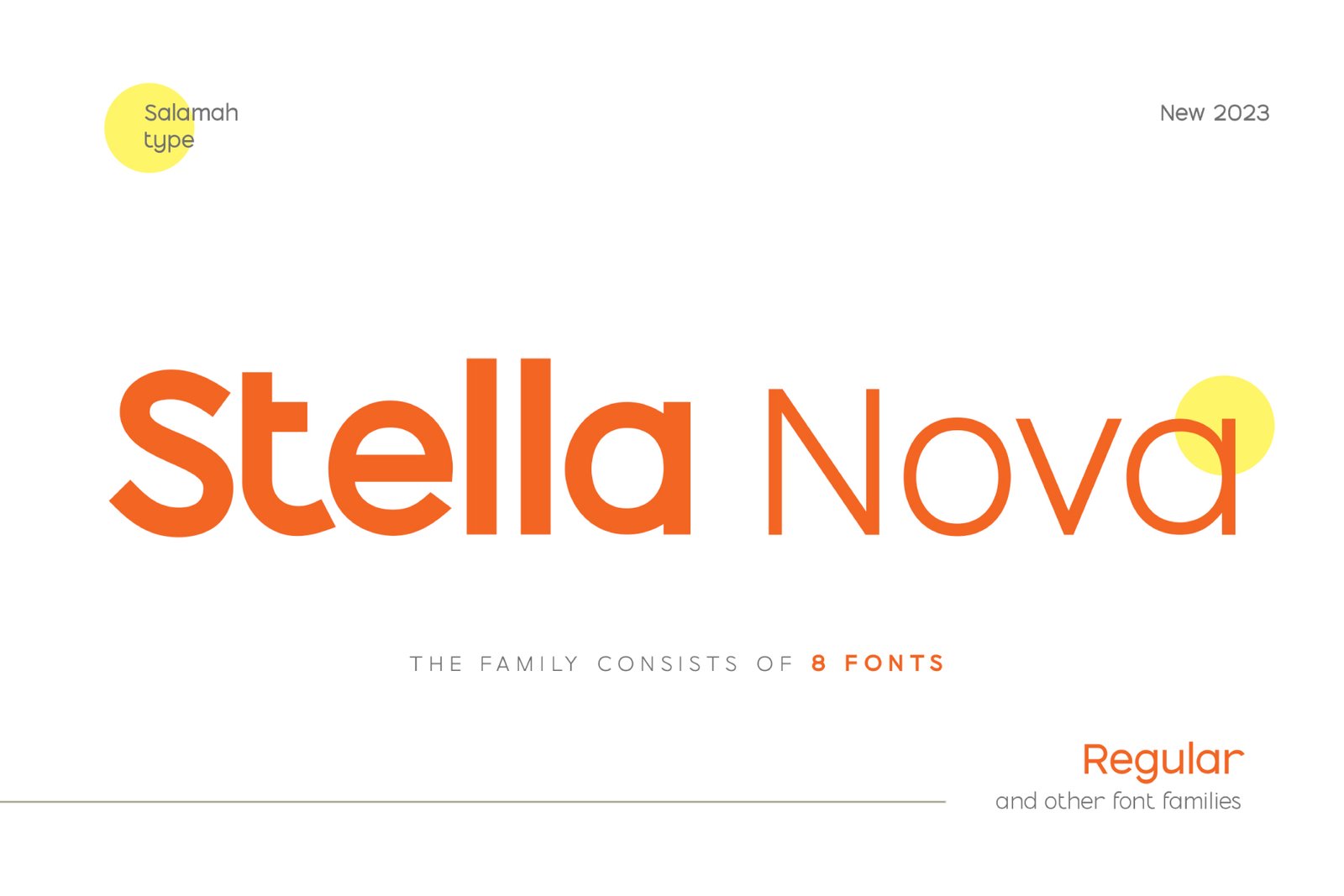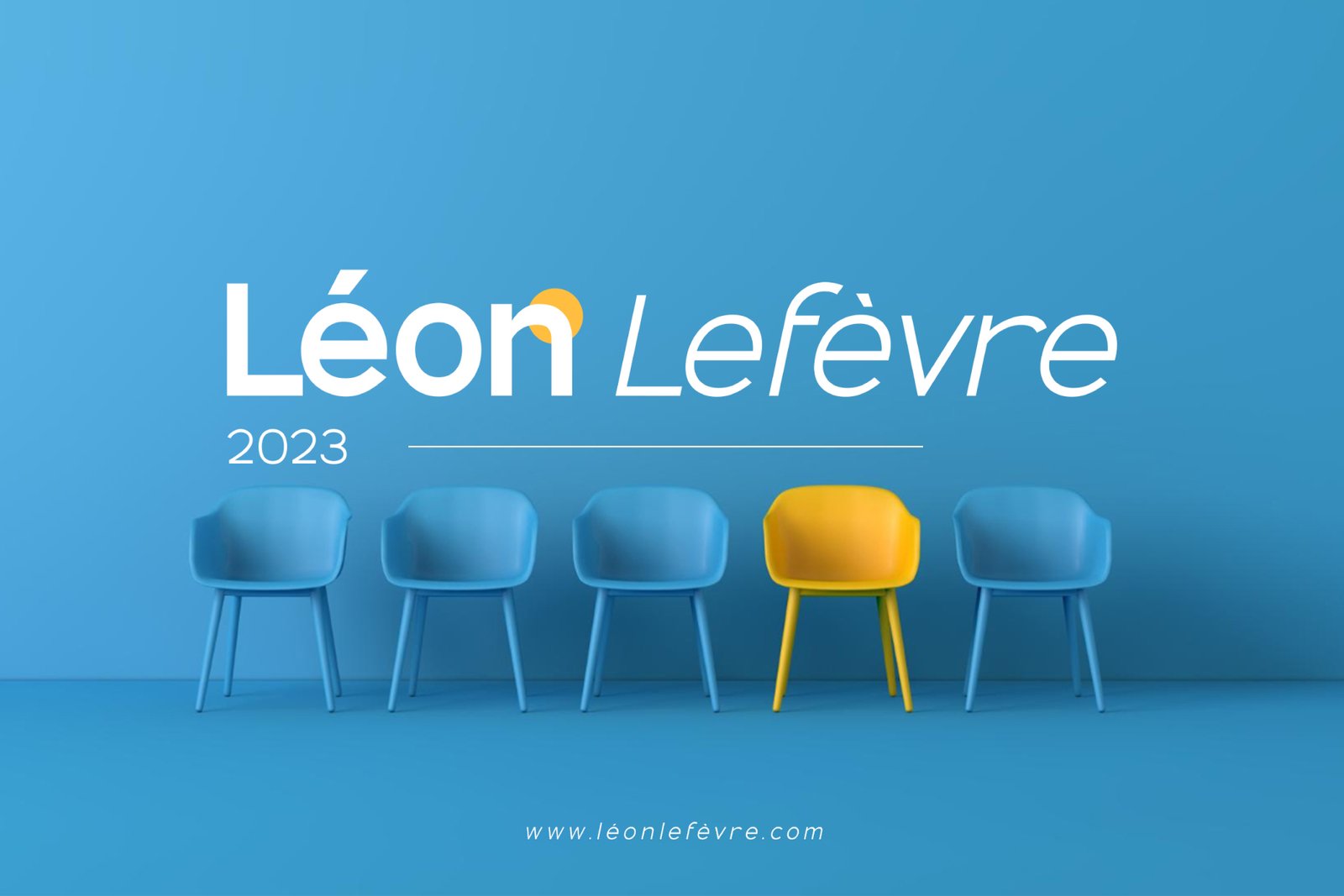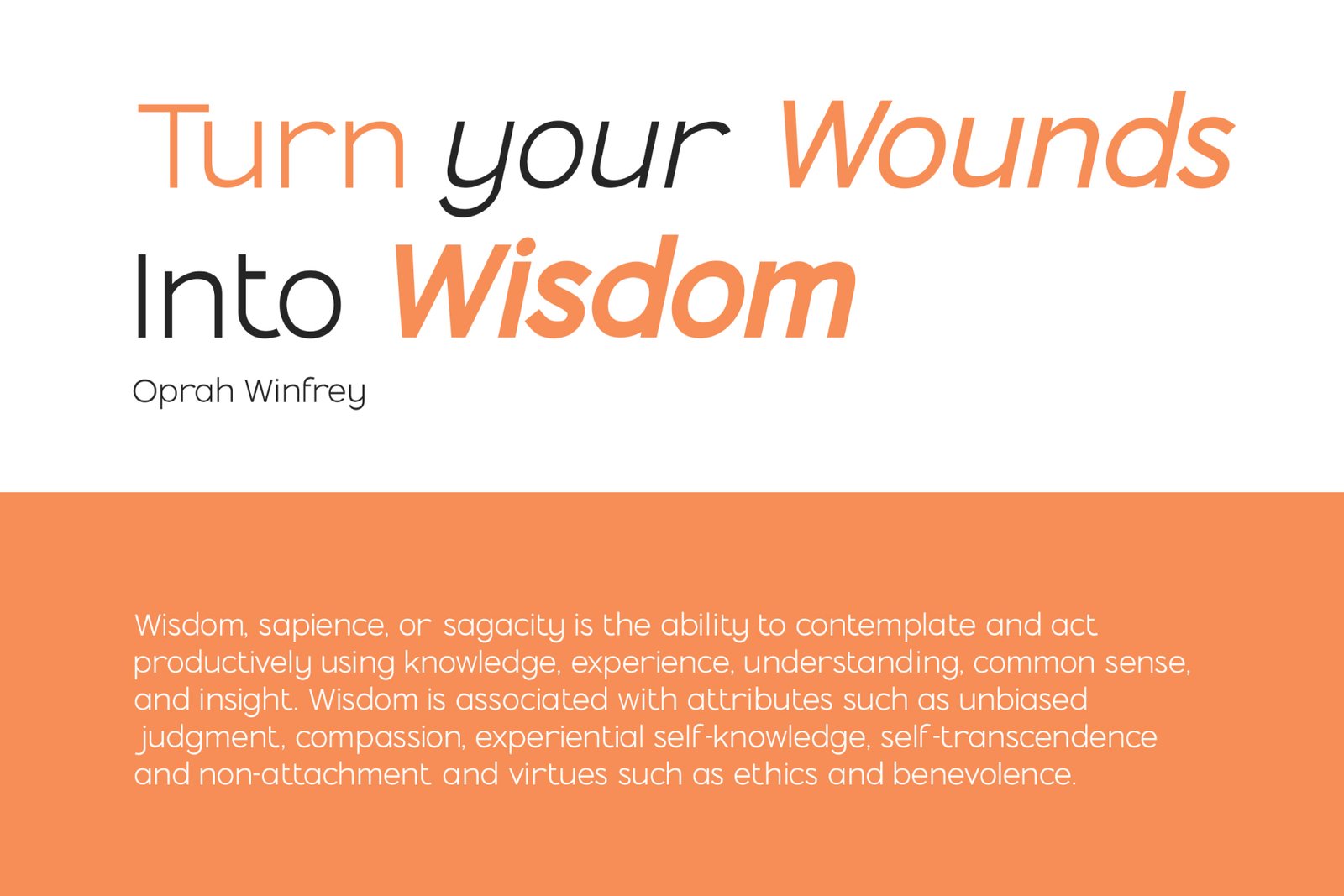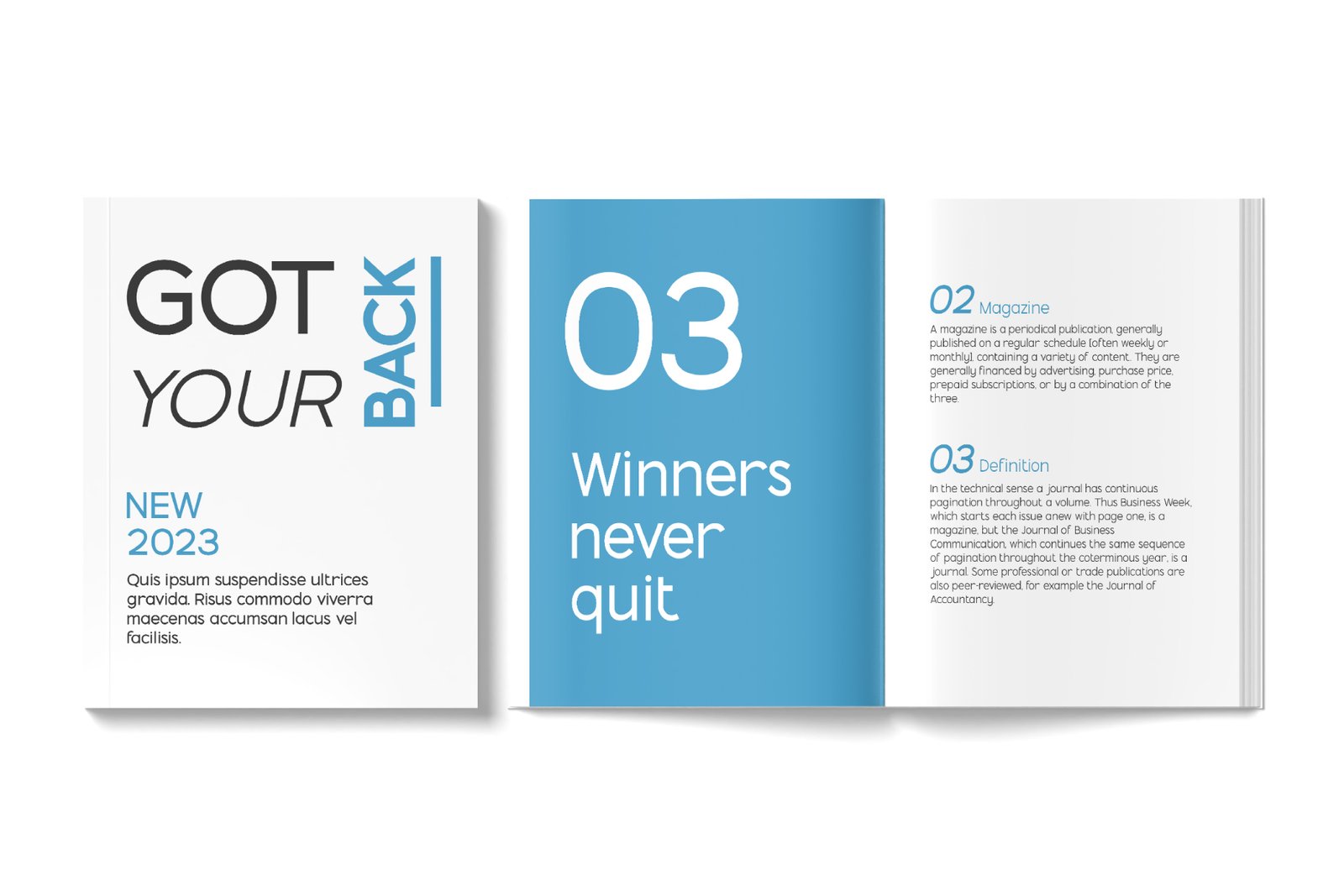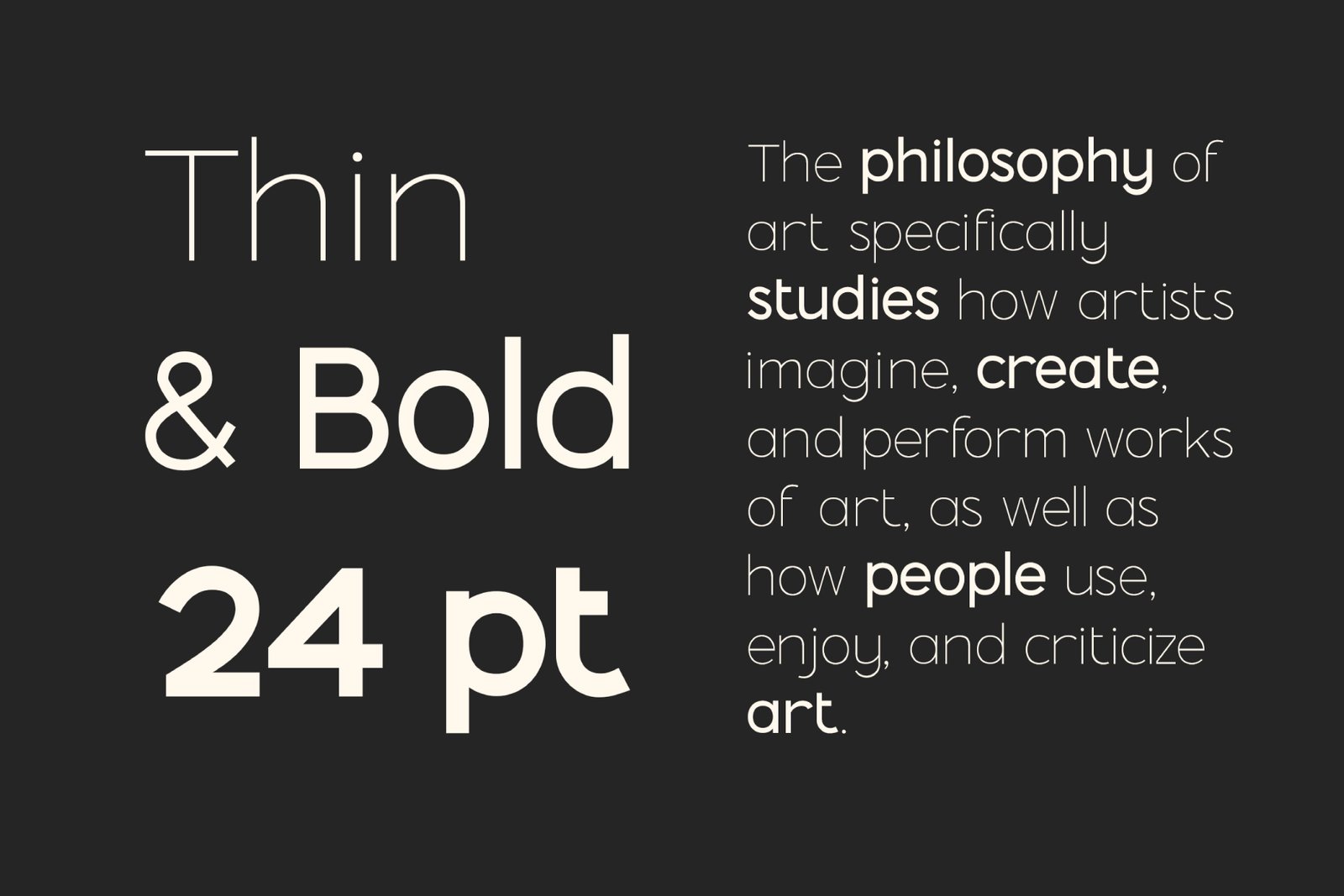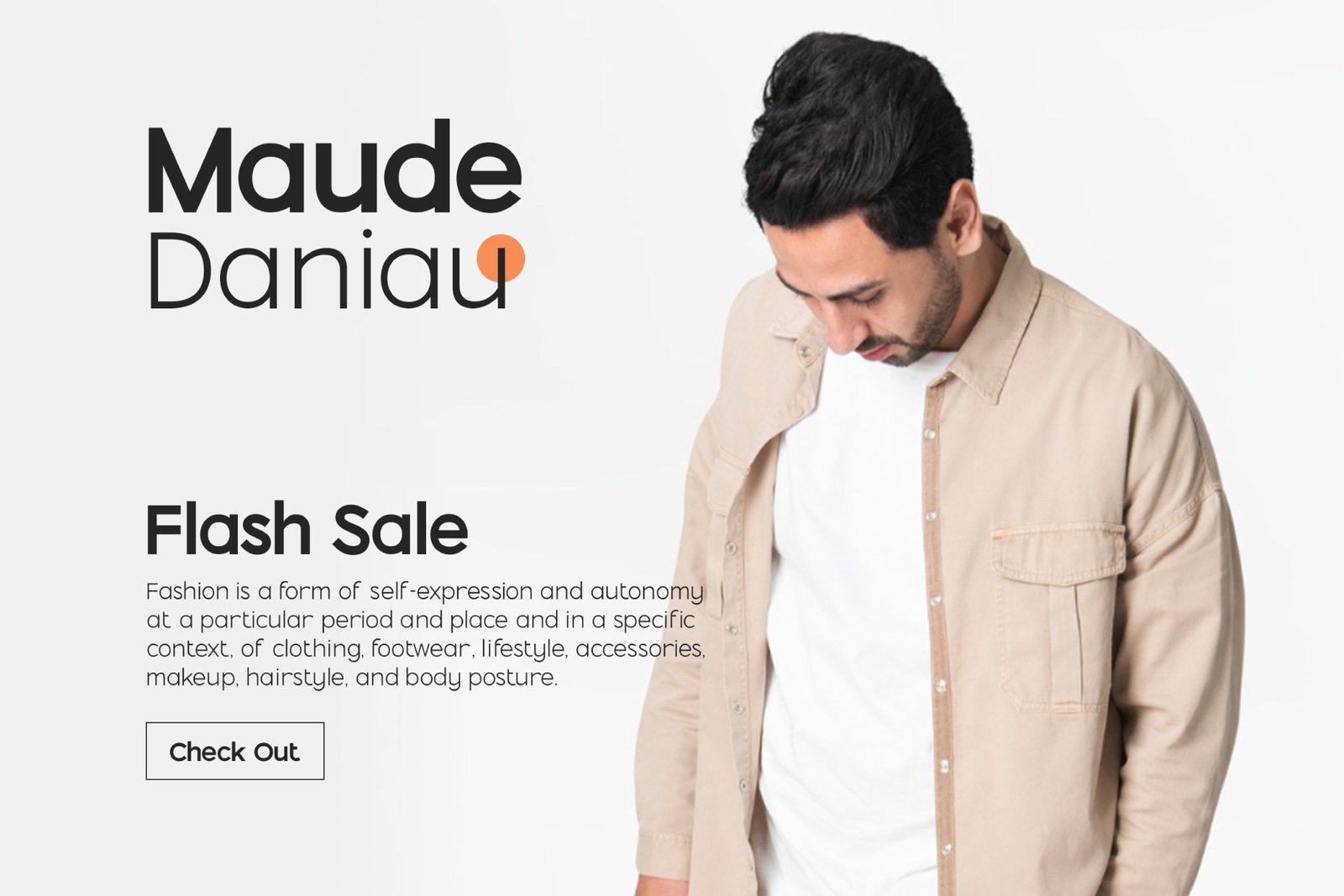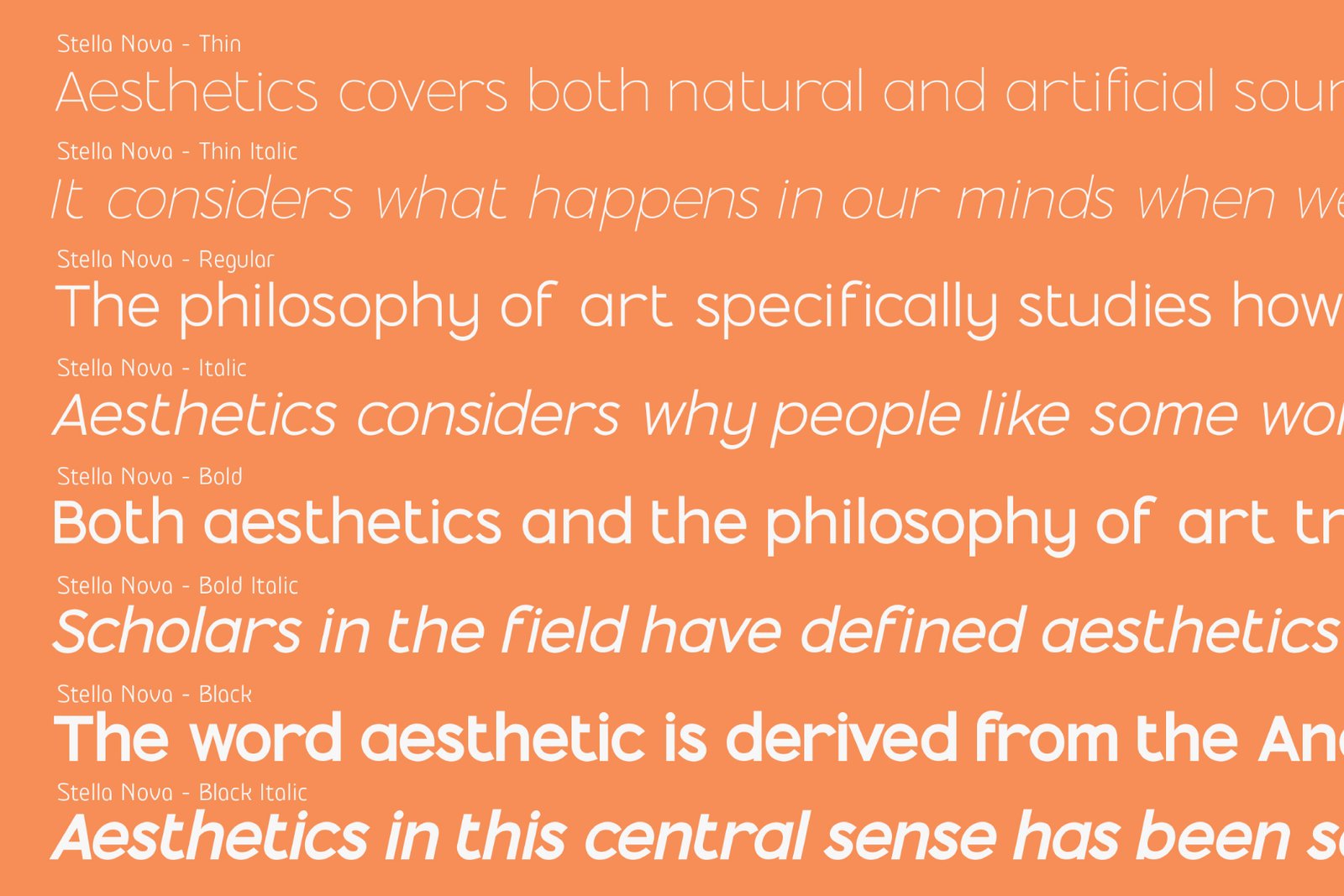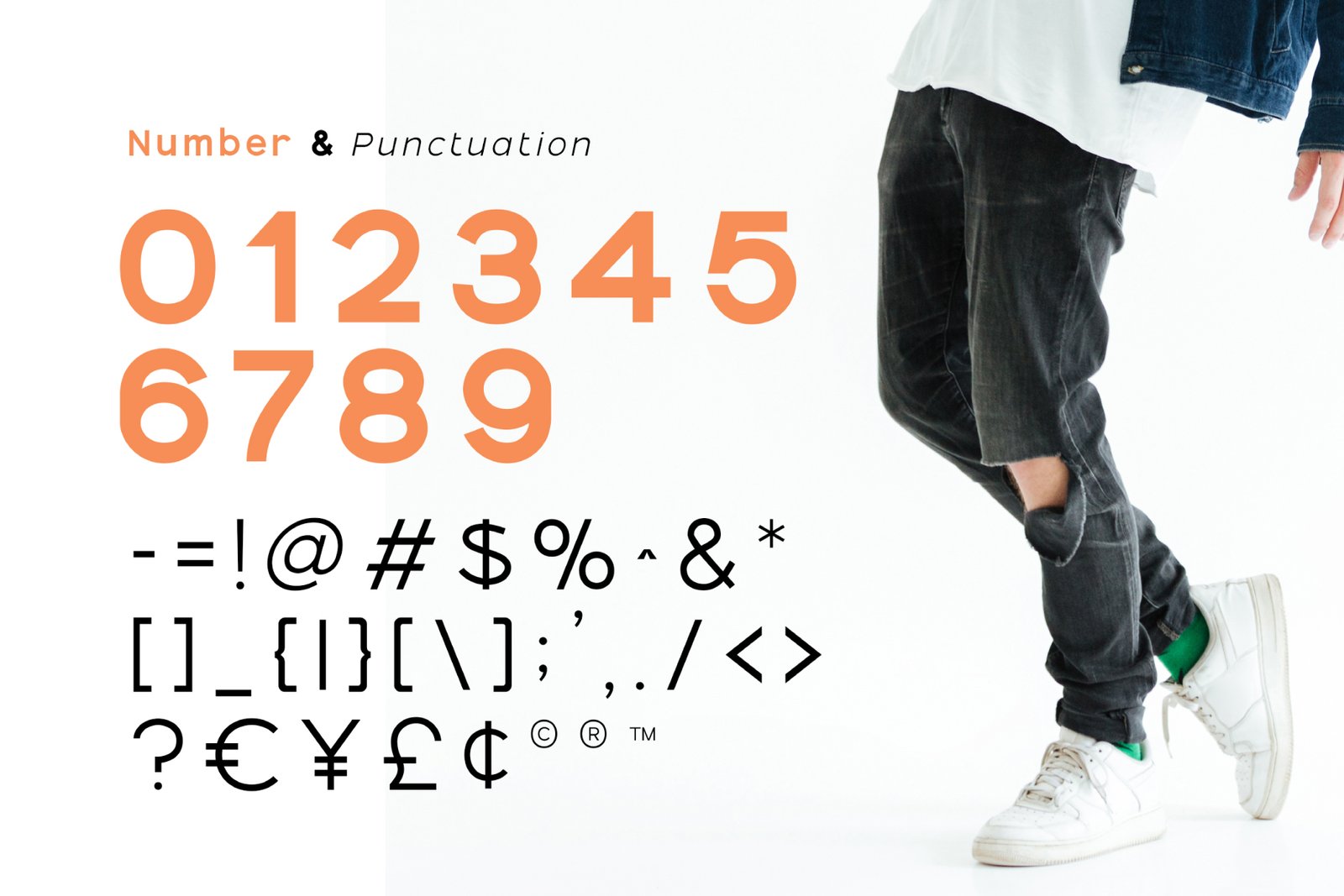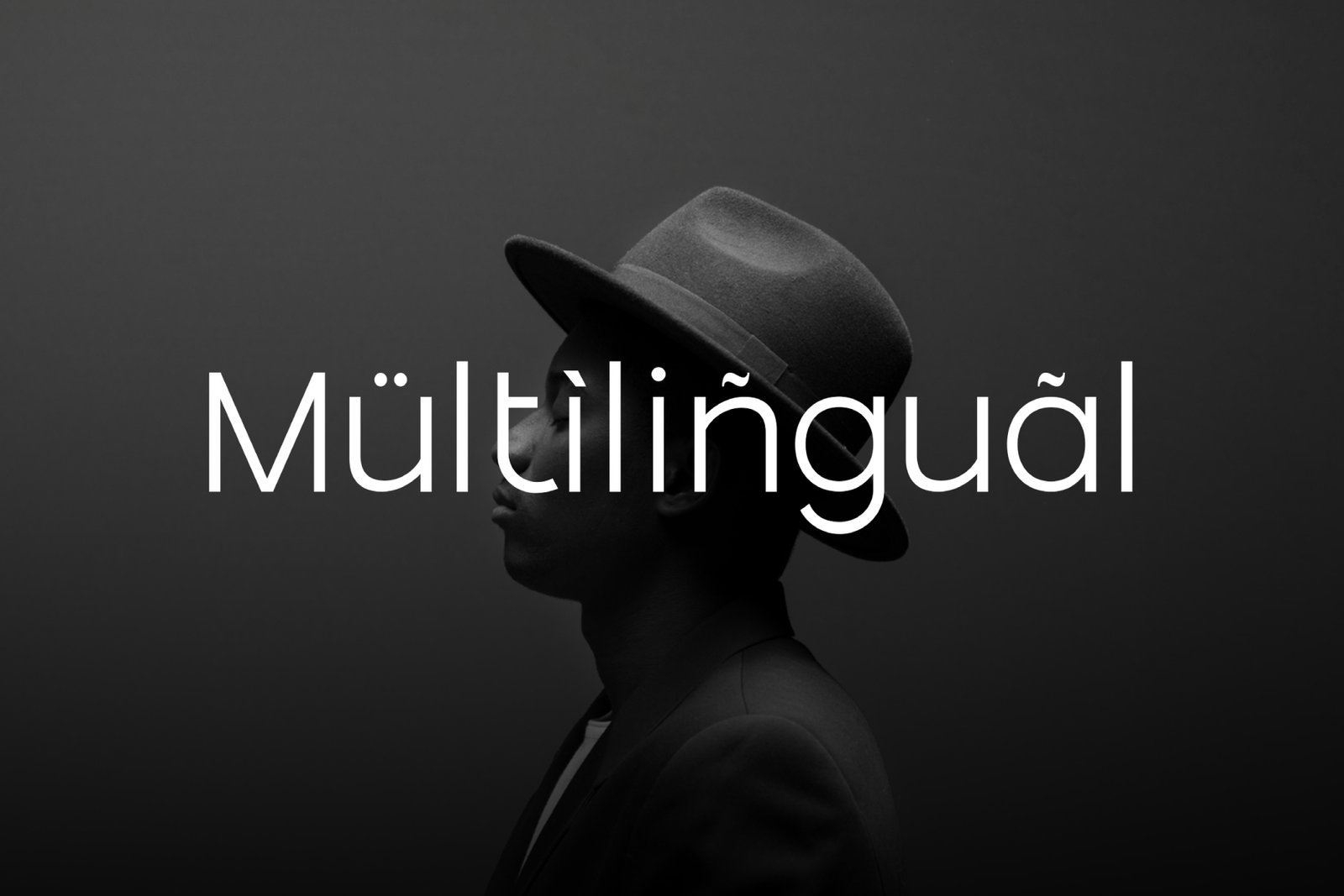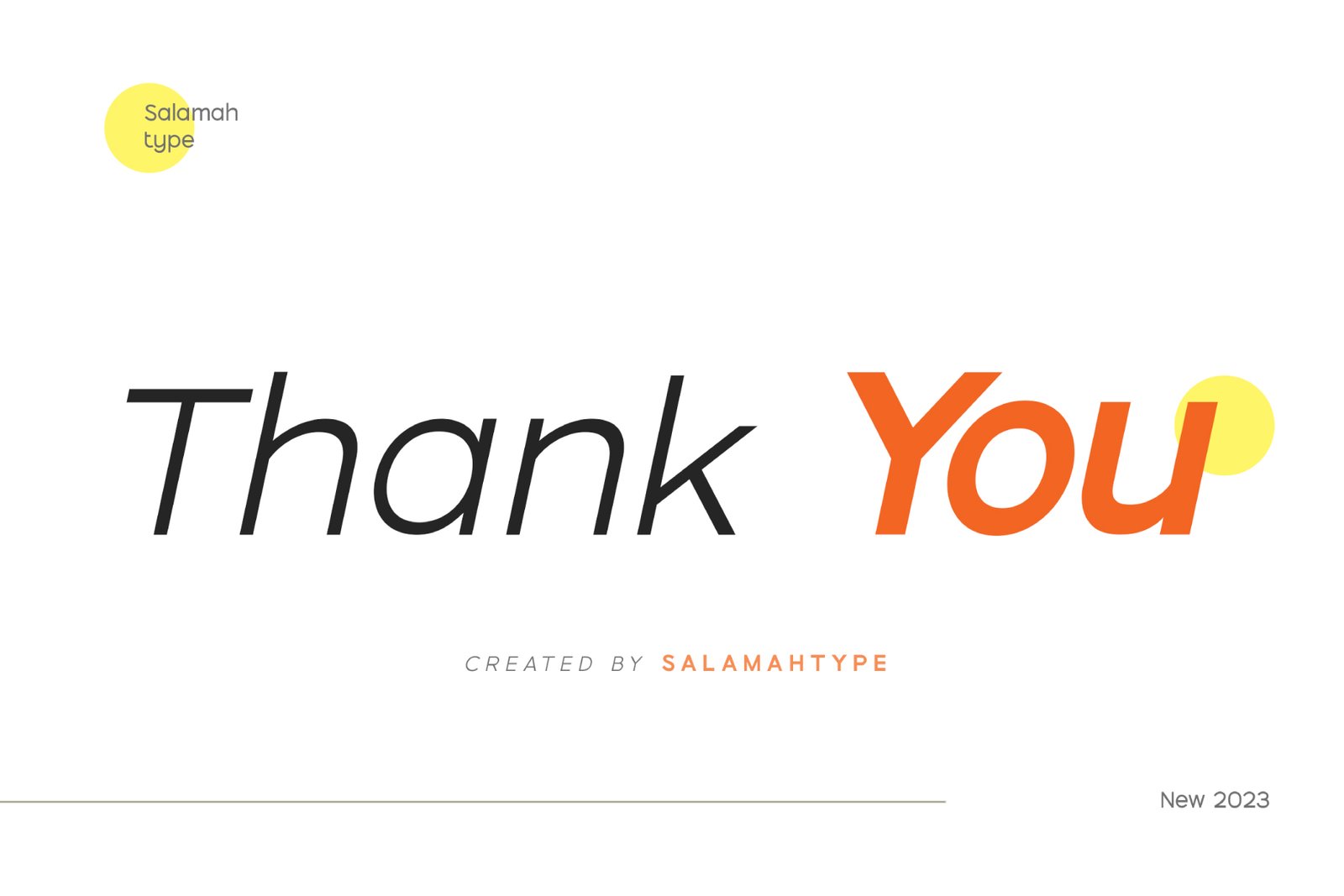
- Stella Nova – Elegant Sans Serif Font Family
Stella Nova – Essential & Elegant Sans Serif Font Family (8 Fonts)
Introducing Stella Nova, an essential and elegant sans serif font family designed to bring a clean, modern, and sophisticated look to any project. With its balanced proportions and timeless aesthetic, Stella Nova is perfect for magazines, posters, logos, branding, websites, and editorial layouts.
The family includes 8 fonts — featuring 4 weights and their matching italics — giving you full flexibility for both headlines and body text. Whether you’re designing for print or digital, Stella Nova delivers clarity, elegance, and versatility.
Features:
4 Weights (+ 4 Italics)
Uppercase, Lowercase, Numbers, Symbols & Punctuation
Multilingual Support
Ideal for branding, editorial, web, and corporate design